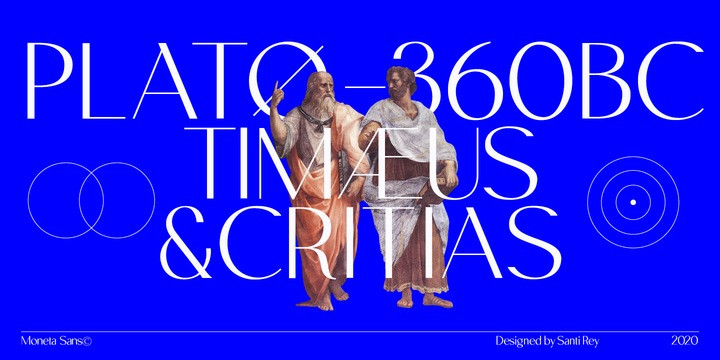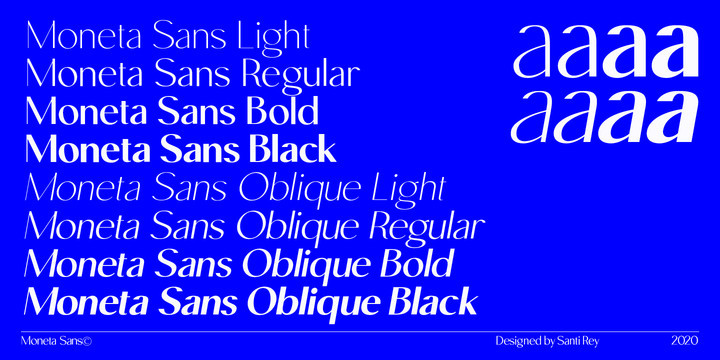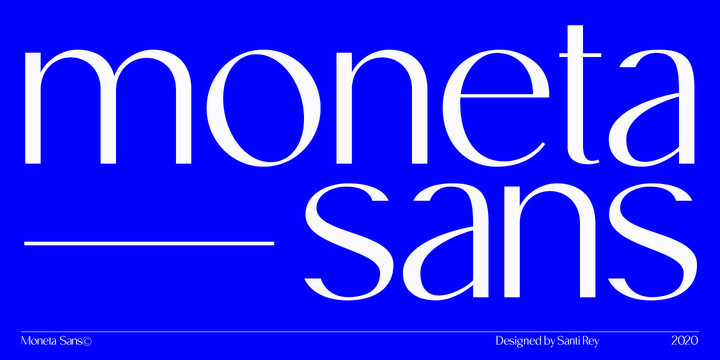
Moneta Sans Font
Moneta™ Sans is an elegant transitional sans-serif with high contrast. Its morphology is based on the study of traditional broad-edge pen script. It comes in 2 styles and 4 different weights (Light, Regular, Bold and Black) and has variable features.